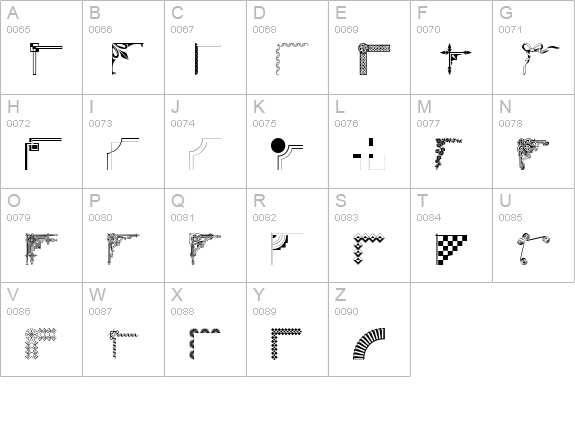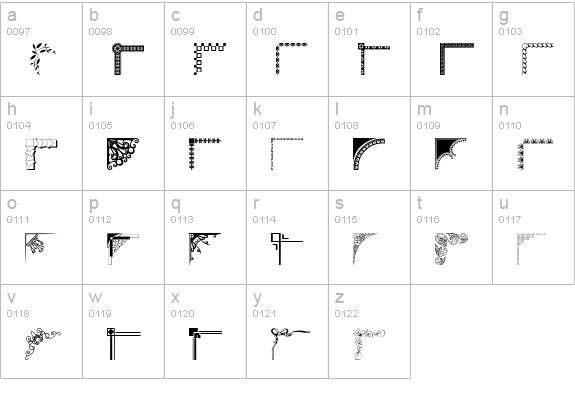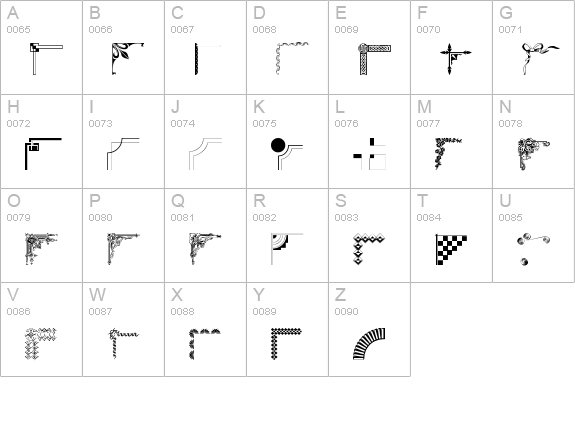
Designer Corners font is a stylish and modern typeface that exudes creativity and sophistication. With its unique design featuring decorative corners and intricate details, this font is perfect for adding a touch of elegance to your projects. Whether you are designing logos, invitations, or branding materials, Designer Corners font will make your text stand out and leave a lasting impression. The best part is that Designer Corners font is completely free to download at FontsMarket.com. You can easily access this beautiful typeface at no cost and use it in your personal or commercial projects. Don't miss out on this opportunity to enhance your designs with the stunning Designer Corners font today!